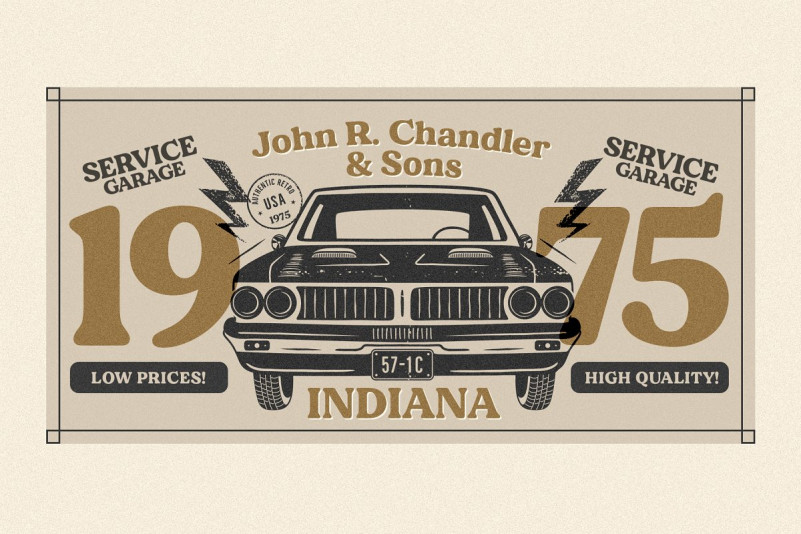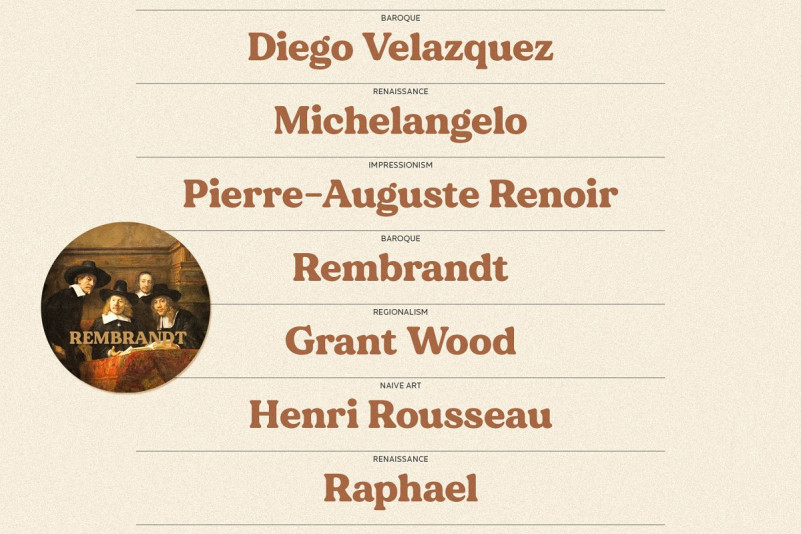
MADE Dillan – Demo Font
Hi Font Lover! This is a classic serif font, perfect for creating bold & gorgeous designs. Its stark contrasting lines are best used in headlines and projects with big type. Introducing Dillan Font. It’s designed and shared by MadeType. It’s a soft serif typeface. MADE Dillan will perfect for many project: fashion, magazines, logo, branding, photography, invitations, quotes, blog header, poster, advertisements, postcard, etc.